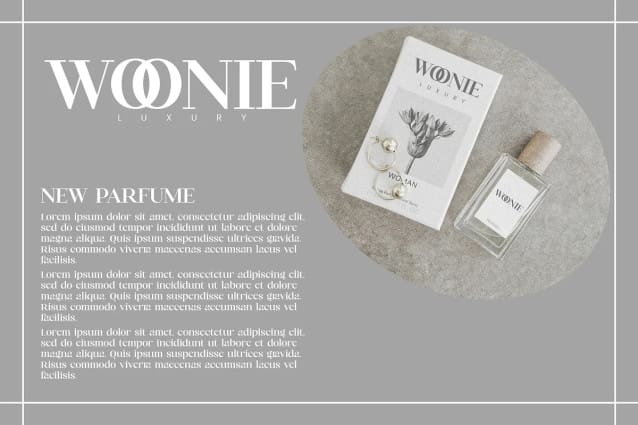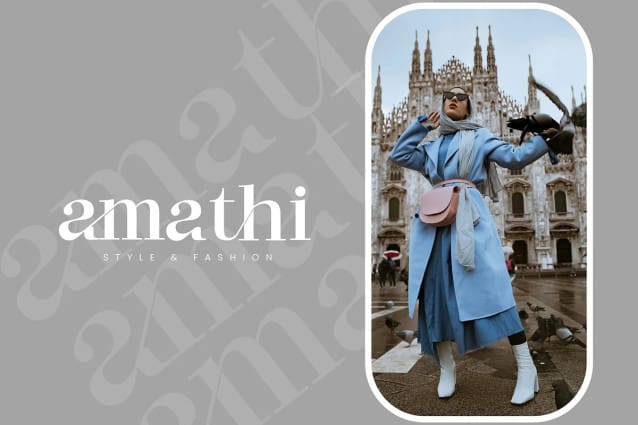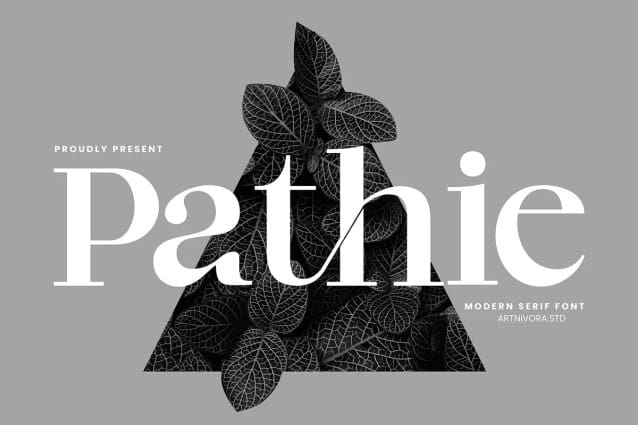
Pathie Font
Pathie Font, a simple and modern serif font. So perfect for you who needs a typeface for logo designs, magazine, social media, brochure, and many more.